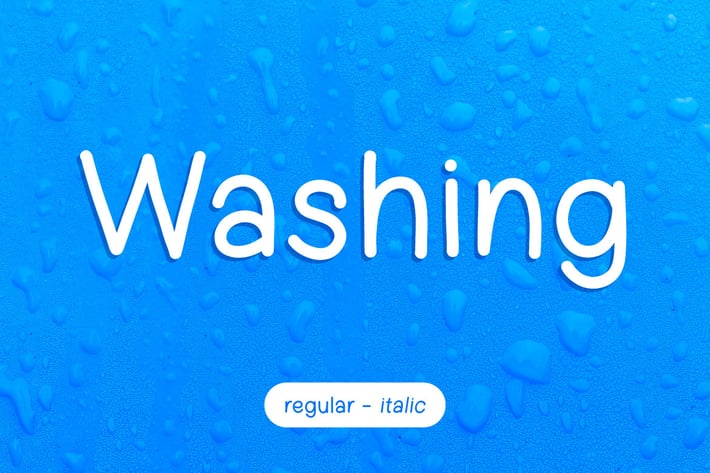
Washing - Handwritten sans-serif font
Hello! Washing is a simple handwritten sansserif font.
Washing can be used in any works such as storybook, comic book, school, flyer, book title, advertisement, social media content, logo and many more.